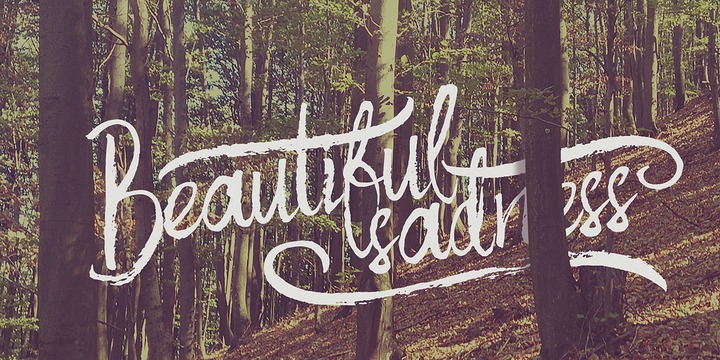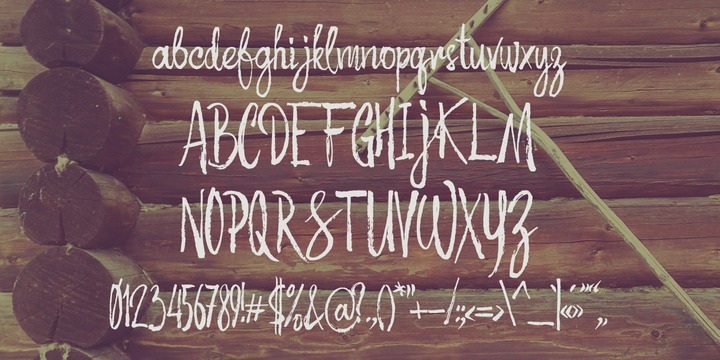
Hello! Presenting a hand drawn calligraphic script Autumn Feel. Its made with a dry brush and has a usefull extra set of various swashes and dynamic strokes.
This extra items can be found in an additional font files Autumn Feel Extras.